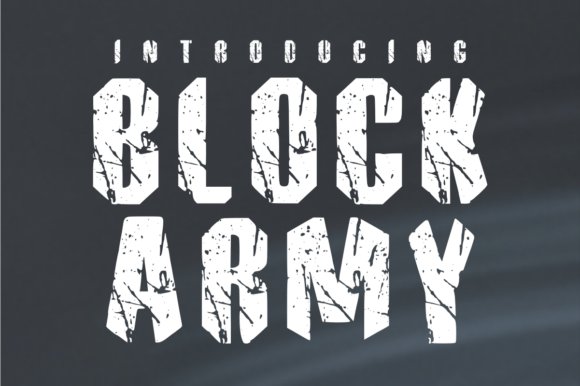
Command Attention with the Battle-Hardened Power of Block Army! 🎖️
Are you tired of using fonts that lack a certain punch? Do you want to add a rugged, high-impact edge to your designs? Look no further than Block Army, a heavy-duty display font designed for strength and durability. With its bold, octagonal block structure and meticulously crafted distressed texture, this font captures the raw essence of military gear, urban street style, and industrial grit.
The Ultimate Choice for Creators
Block Army is the ultimate choice for creators who need a “tough-as-nails” look. Its weathered appearance adds instant character and a vintage military feel to any project, making it a standout choice for the thriving print-on-demand and crafting markets. Whether you’re designing for apparel, accessories, or home decor, Block Army is the perfect font to give your projects a bold, eye-catching look.
Why Block Army is a Must-Have
So, what sets Block Army apart from other fonts? Here are just a few reasons why this font is a must-have for designers and crafters:
- Authentic Distressed Texture: The built-in “eroded” effect saves you time—no need to add extra textures manually! This distressed texture gives your designs a worn, battle-hardened look that’s perfect for creating a vintage or military-inspired aesthetic.
- Strong Geometric Presence: The octagonal, blocky shapes provide a solid foundation for masculine and athletic designs. This geometric structure makes Block Army perfect for creating bold, attention-grabbing graphics that demand attention.
- Craft-Ready Excellence: Despite its detailed texture, the paths are optimized for clean cutting in mac. This means that crafters can easily use Block Army to create intricate designs and cuts with precision and accuracy.
Perfect for Print-on-Demand and Crafting Markets
Block Army is specifically designed with the print-on-demand and crafting markets in mind. Its unique distressed texture and bold geometric structure make it perfect for creating a wide range of products, from apparel and accessories to home decor and paper crafts. With Block Army, you can add a touch of rugged, industrial grit to your designs and give them a standout look that sets them apart from the competition.
Tips for Using Block Army
Here are a few tips for getting the most out of Block Army:
- Use it for headlines and titles: Block Army is perfect for creating bold, attention-grabbing headlines and titles. Its distressed texture and geometric structure make it perfect for creating a dramatic, eye-catching effect.
- Pair it with simple backgrounds: Block Army’s bold, distressed texture can be overwhelming if paired with busy or complex backgrounds. Try pairing it with simple, solid-colored backgrounds to let the font take center stage.
- Experiment with different colors: Block Army looks great in a wide range of colors, from bold and bright to muted and earthy. Experiment with different colors to find the perfect look for your design.
In conclusion, Block Army is a powerful and versatile font that’s perfect for designers and crafters who need a bold, rugged look. Its unique distressed texture and geometric structure make it perfect for creating a wide range of designs, from military-inspired graphics to industrial-style logos. With its ease of use and craft-ready excellence, Block Army is a must-have font for anyone looking to add a touch of battle-hardened power to their designs.